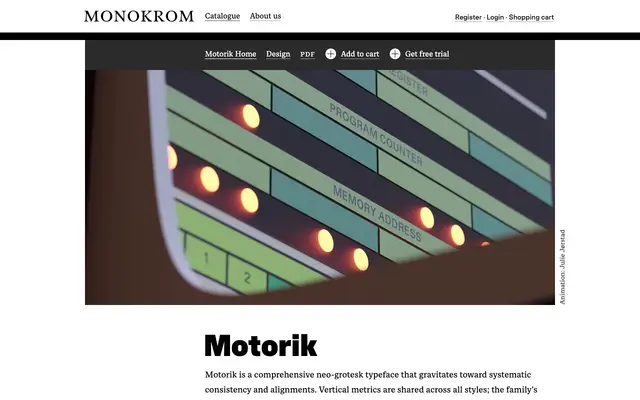
Motorik
Monokrom · Frode Helland, Inga Plönnigs, Wei Huang · 2024
A neo-grotesque from Monokrom rooted in the systematic principles of Käch and Frutiger, built around shared vertical metrics, regular weight intervals and slanted romans that match their upright set widths exactly.
Designed by Frode Helland, Inga Plönnigs and Wei Huang, Motorik draws its logic from the Swiss modernist tradition that produced Univers, prioritising systematic consistency over expressive idiosyncrasy. Small apertures, mirror symmetry and regularised widths give the family a closed, static construction that holds across five weights and matching italics. The foundry frames the project as a revisitation of the mature modernist sans-serif and the cultural moment of its conception and swift ideological collapse.
Motorik is explicitly positioned as a neo-grotesque, tracing its lineage through Walter Käch and Adrian Frutiger's Univers, characterised by systematic consistency, small apertures, mirror symmetry and regularised widths across all styles.